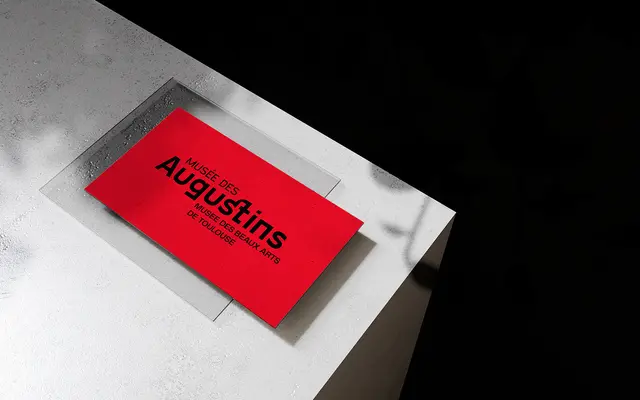
Gosha Sans
Pangram Foundry · Mat Desjardins · 2018
A geometric sans with hard corners and a brutalist edge, drawn from vintage Eastern European and Soviet-era typographic sources.
Eight weights from Thin to Ultrabold, available as a variable font, give the family a practical range across headlines, logos and UI work. Alternate characters for A, S and U let designers push the Soviet reference further or dial it back towards a cleaner grotesk. Cyrillic support sits alongside a broad Latin Extended character set covering more than thirty languages.
Geometric construction with hard corners and strong vertical strokes drawn from Soviet-era and Eastern European typographic traditions; the foundry categorises it as Brutalist and Geometric Sans.